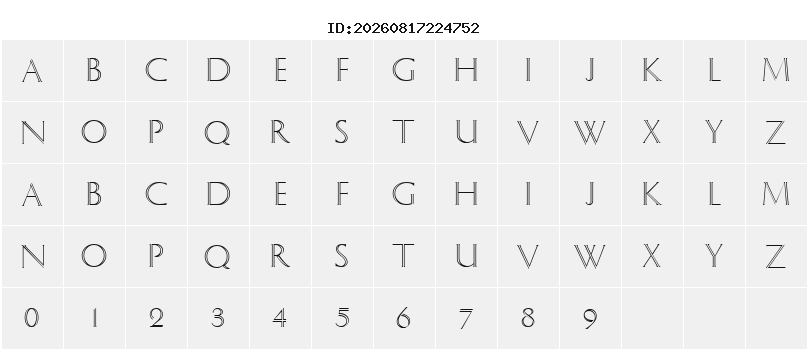
• Font Name: Socrates
• Font ID: Altsys Fontographer 3.5 Socrates Regular
• Full Font Name: Socrates Regular
• Version: Media Graphics International: Publisher's Paradise (TM) October 1994
• PostScript Name: Socrates
About Socrates.ttf
Socrates.ttf is a modern, elegant sans-serif font designed for ultimate readability and visual harmony. Perfect for branding, headlines, web design, and print materials.